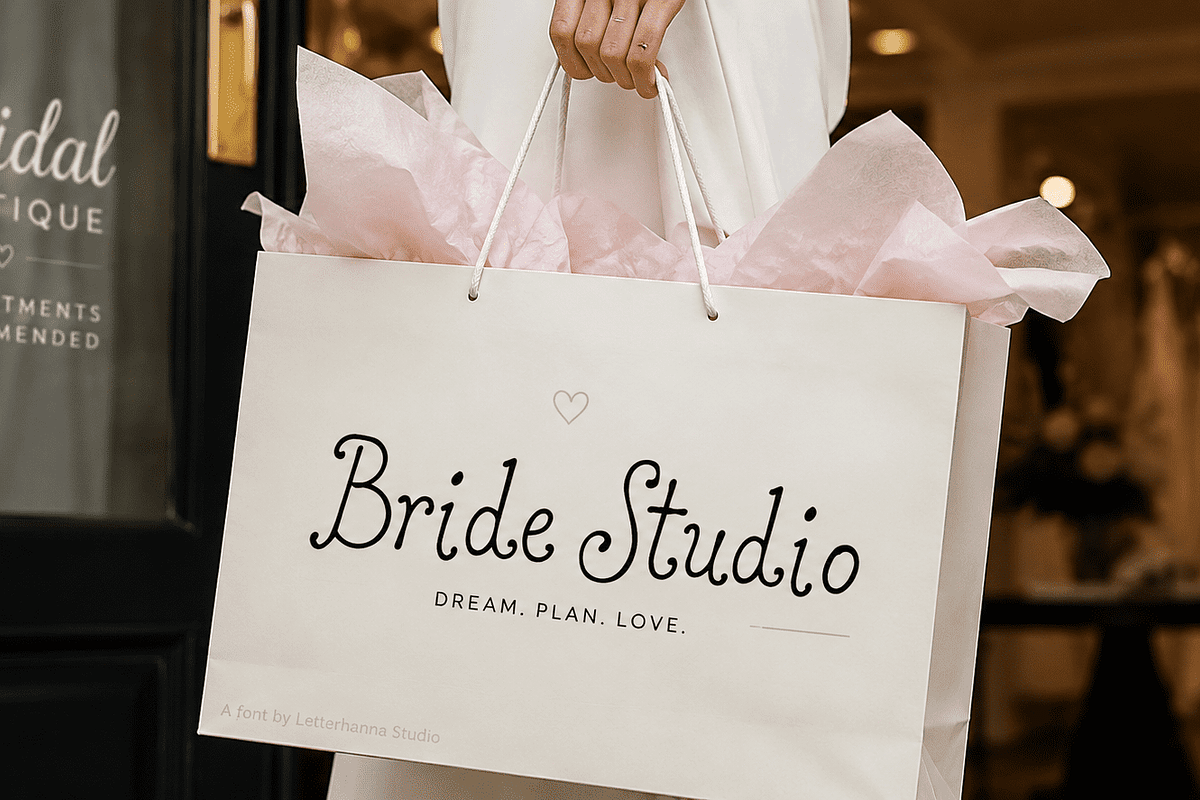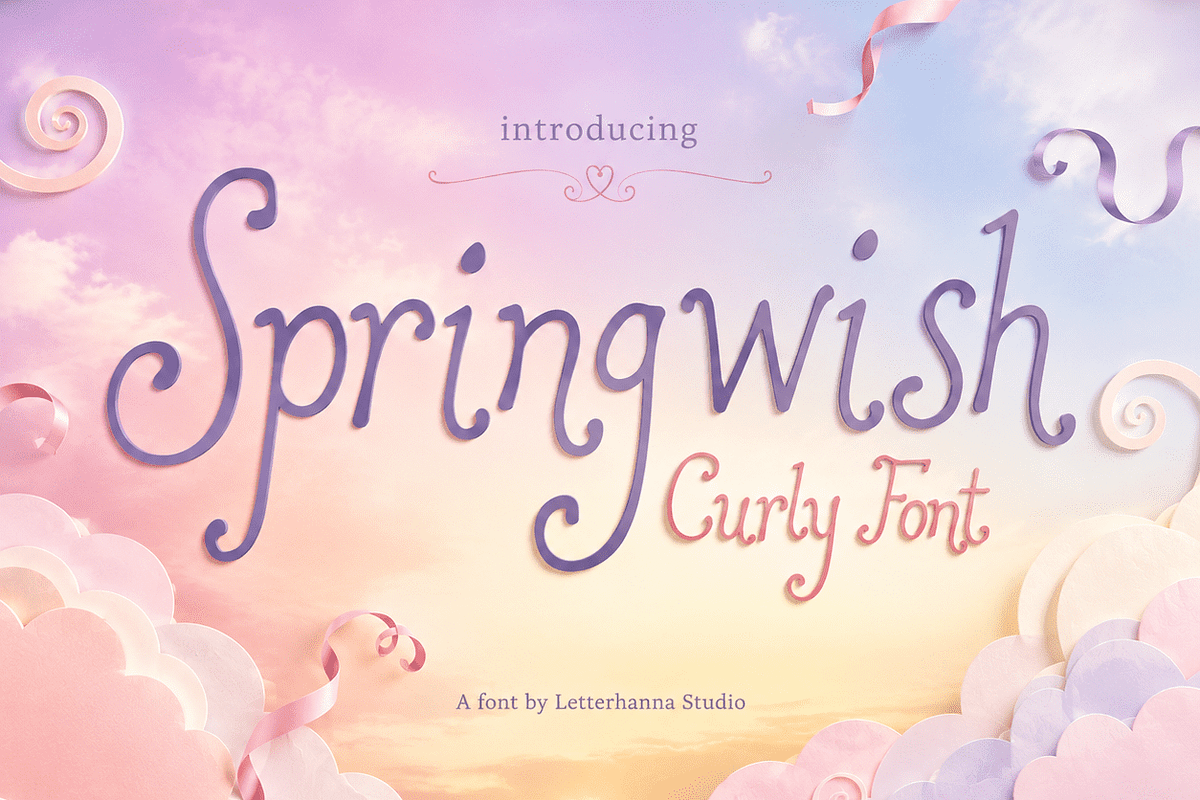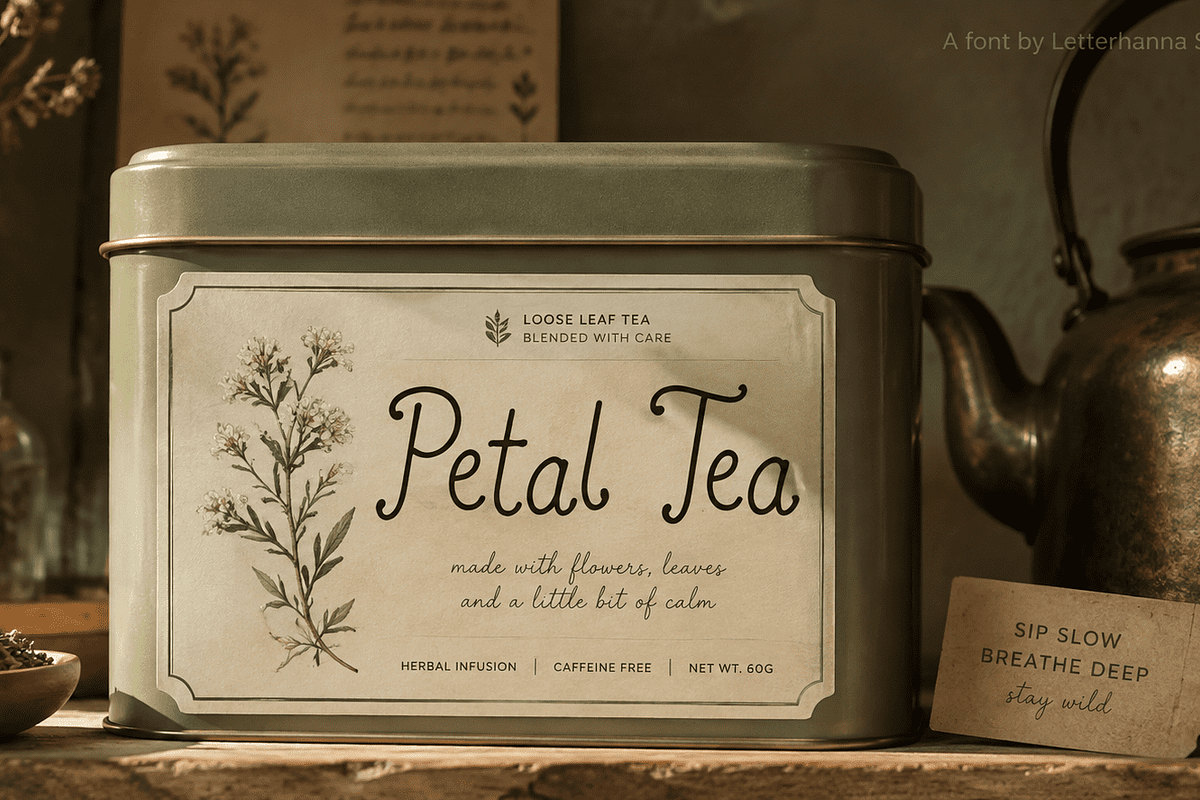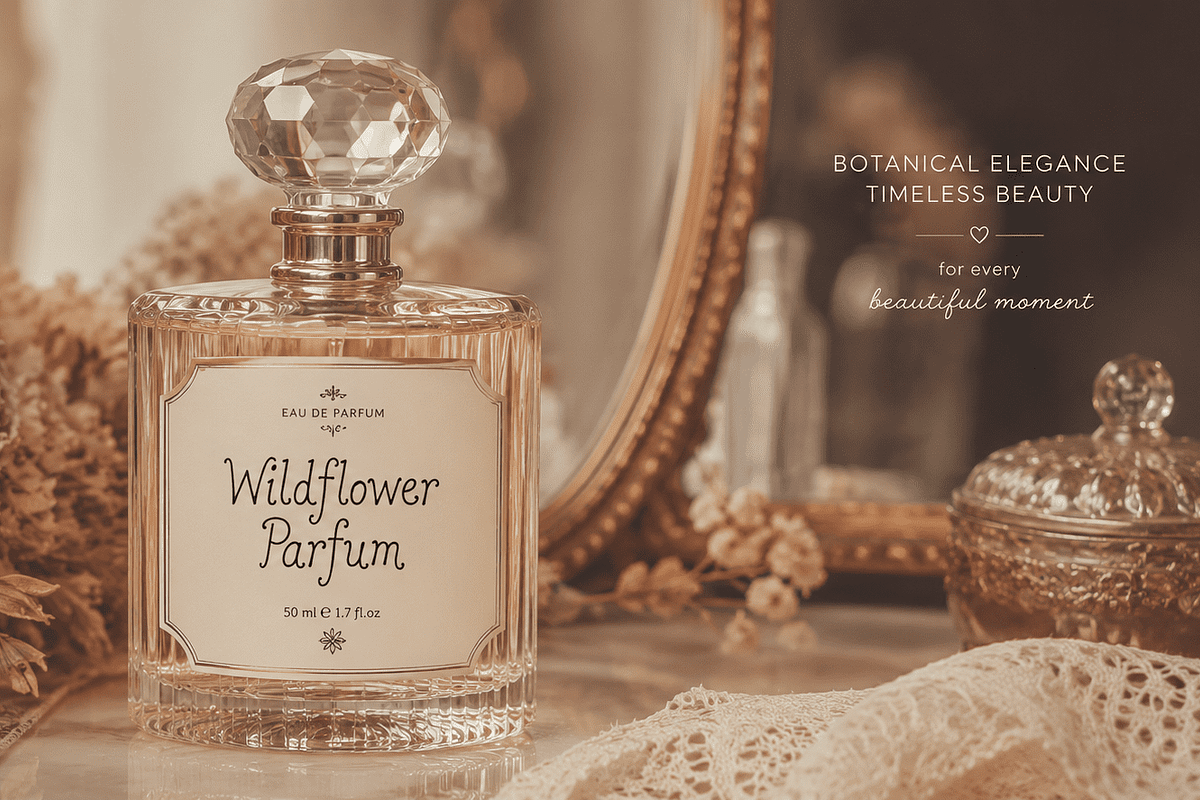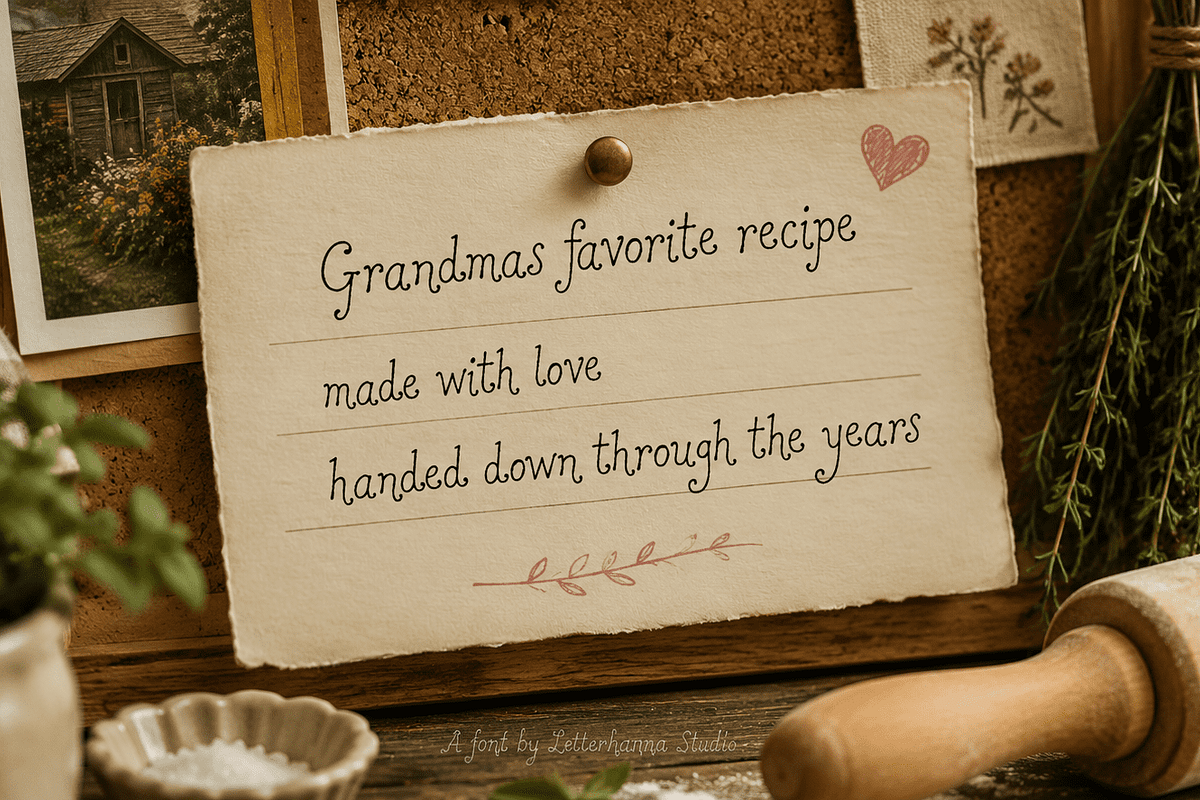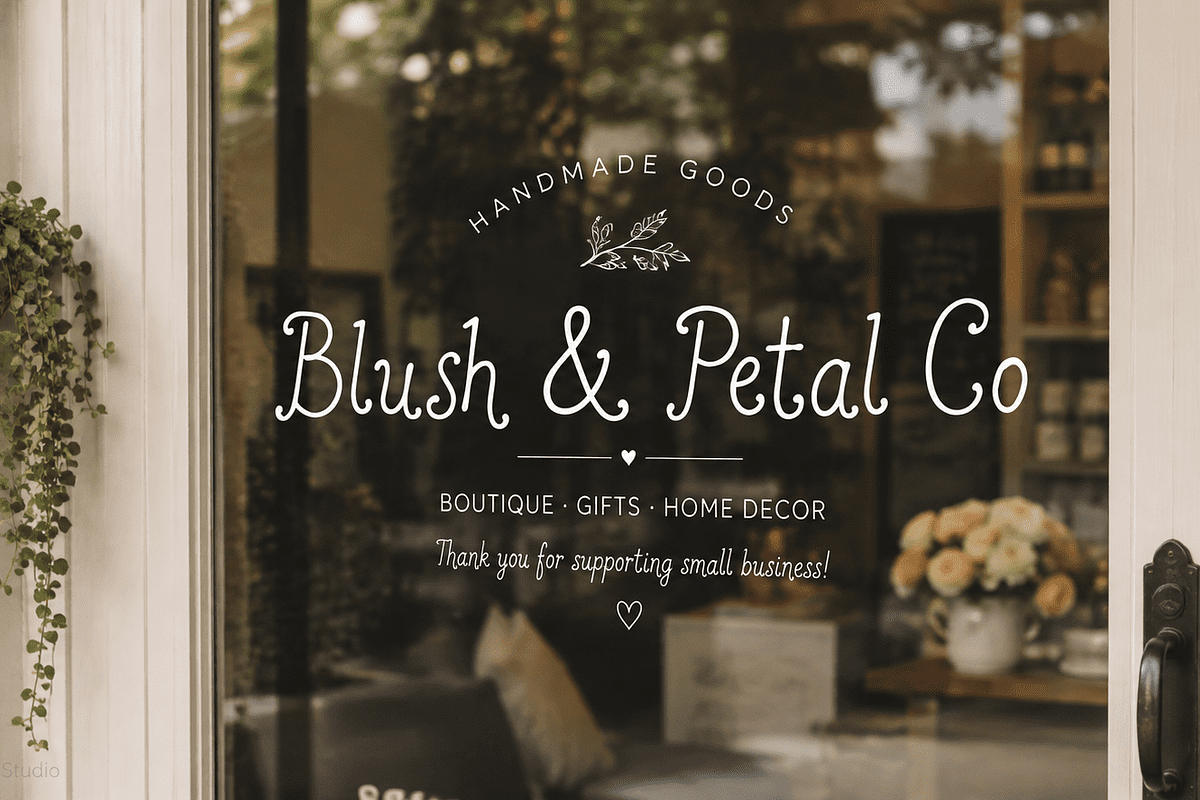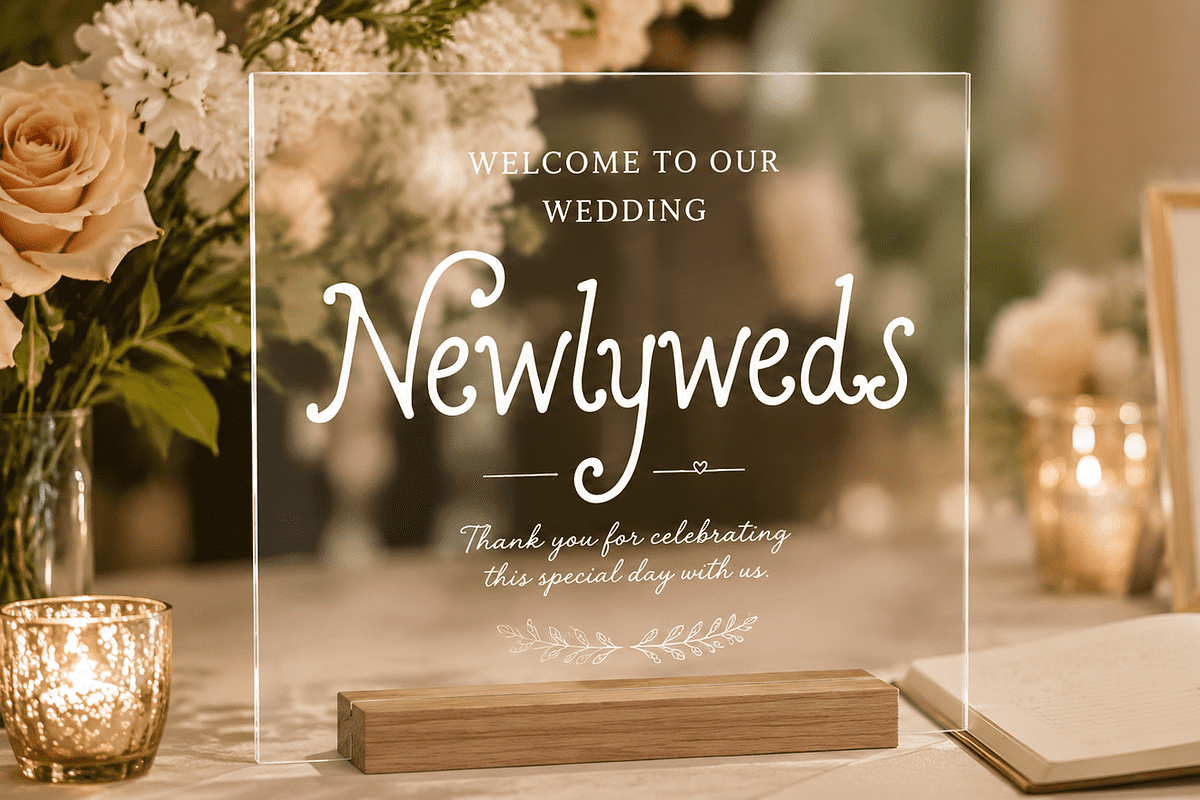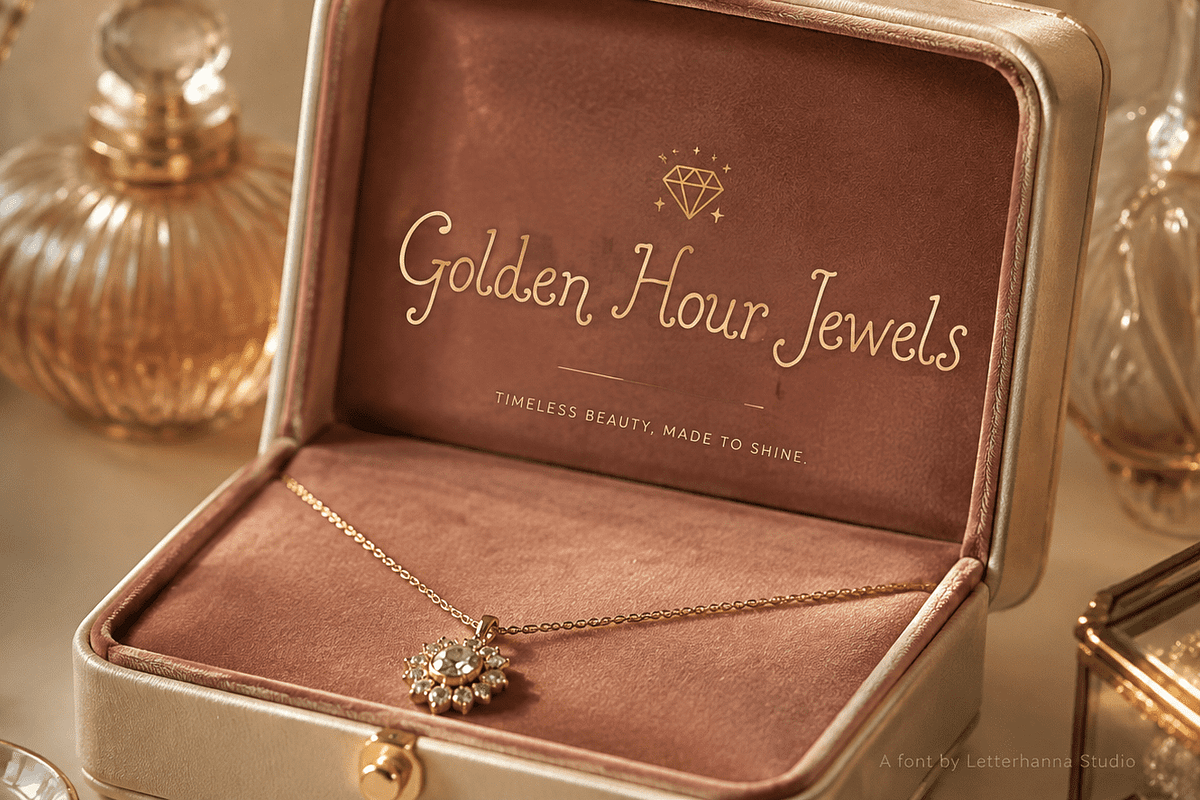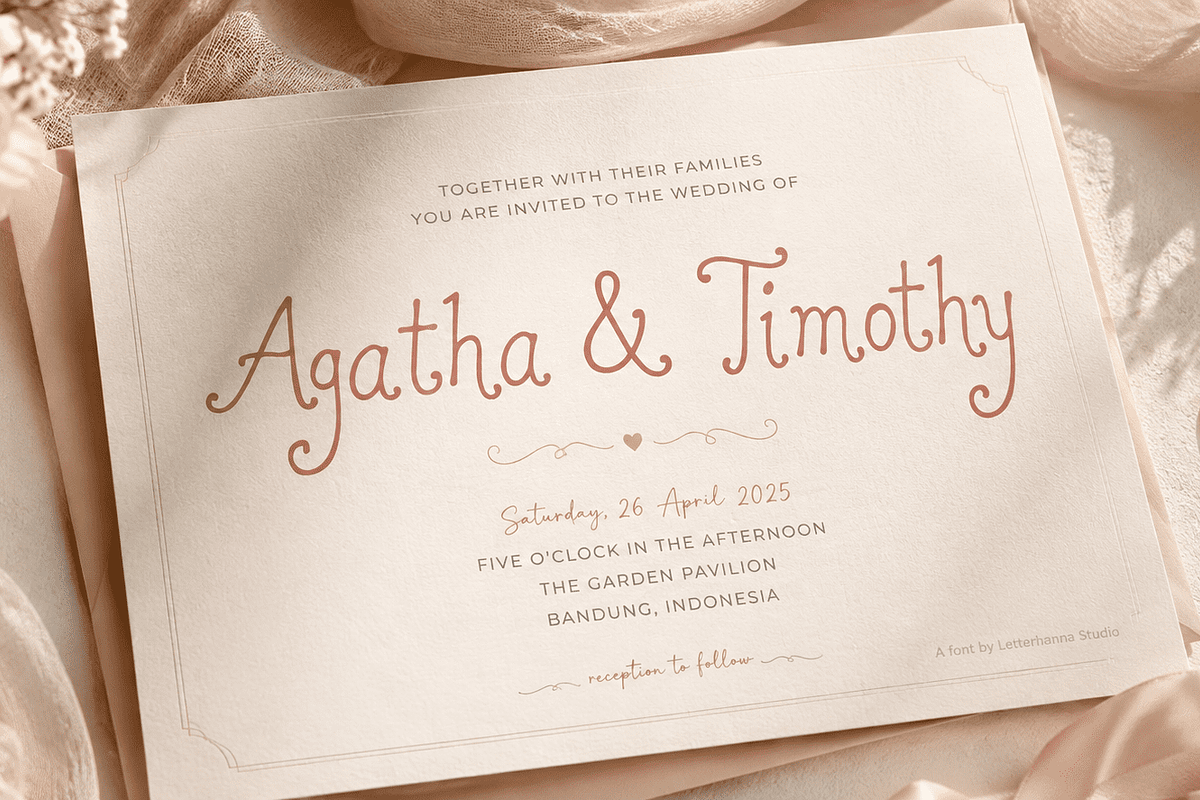
Springwish: A Whimsical Curly Font
There is a particular kind of magic in a handwritten note — the way a loop swings a little too far, the way a letter dances instead of standing still. That magic is exactly what inspired Springwish, a curly font built for people who want their words to feel like they were written by hand, in a quiet room, with someone they love in mind.
Springwish began the way most good design stories begin: with a small, specific need. A friend was planning her wedding and couldn't find a font that felt like her — soft but not fragile, romantic but not overdone, playful without losing elegance. Every handwritten font she tried felt either too stiff or too chaotic. So the search turned into a sketch, and the sketch turned into Springwish: a curly font that captures the warmth of ink on paper, with just enough whimsy to feel alive.
The Shape and Style of Springwish
Look closely at Springwish and you'll notice the capitals lead the story. Each uppercase letter opens with a generous, sweeping curl — the kind of flourish you'd expect from an old love letter or a monogram stitched into a linen napkin. These loops aren't decoration for decoration's sake; they set the tone for everything that follows, giving every headline a sense of occasion.
The lowercase letters tell a softer, bouncier story. Instead of standing in a rigid row, each letter tilts and dips with a gentle rhythm, as if the pen never quite slowed down between words. Ascenders curl upward with a light spring, descenders swing low and loose, and the overall baseline feels less like a ruler and more like a ribbon. This is what makes Springwish a true handwritten font rather than a stiff script imitation — it moves the way real handwriting moves, imperfect in the most charming way.
The Vibe: Romantic, Nostalgic, and a Little Bit Free-Spirited
If Springwish were a scene, it would be golden-hour light falling across a table set for two, a stack of pressed flowers tucked into an old book, or a wax-sealed envelope waiting to be opened. It carries a nostalgic warmth — the sense of something cherished and handmade — while still feeling fresh enough for modern branding.
This is precisely why Springwish works so well as a wedding font. Wedding stationery needs to feel personal, not printed; intimate, not corporate. A curly font like Springwish gives invitations, save-the-dates, and menu cards the emotional weight they deserve, turning a simple card into something a guest wants to keep. But its charm doesn't stop at weddings. As a whimsical font, Springwish is equally at home on nursery wall art, boutique packaging, greeting cards, and any brand that wants to whisper rather than shout.
Why Designers Keep Reaching for Curly, Handwritten Fonts
There's a reason curly fonts and handwritten fonts have stayed popular across stationery, branding, and social media design for years: they add a human fingerprint to digital work. In a world of clean sans-serifs and predictable templates, a font with personality — one that curls, dips, and swings — creates an emotional connection almost instantly. Springwish leans fully into that emotional pull, without sacrificing legibility or versatility across sizes.
Whether you're designing a full wedding suite, a cozy candle label, or a heartfelt quote print, Springwish adapts. Pair the elaborate capitals with clean body text for contrast, or let the lowercase run wild across a full headline for maximum personality. Either way, the font brings a sense of story to whatever it touches.
Bring Your Own Story to Life
Every great design starts with a feeling you're trying to capture — and Springwish was built to hold exactly that kind of feeling. Soft, romantic, a little nostalgic, and full of quiet joy.